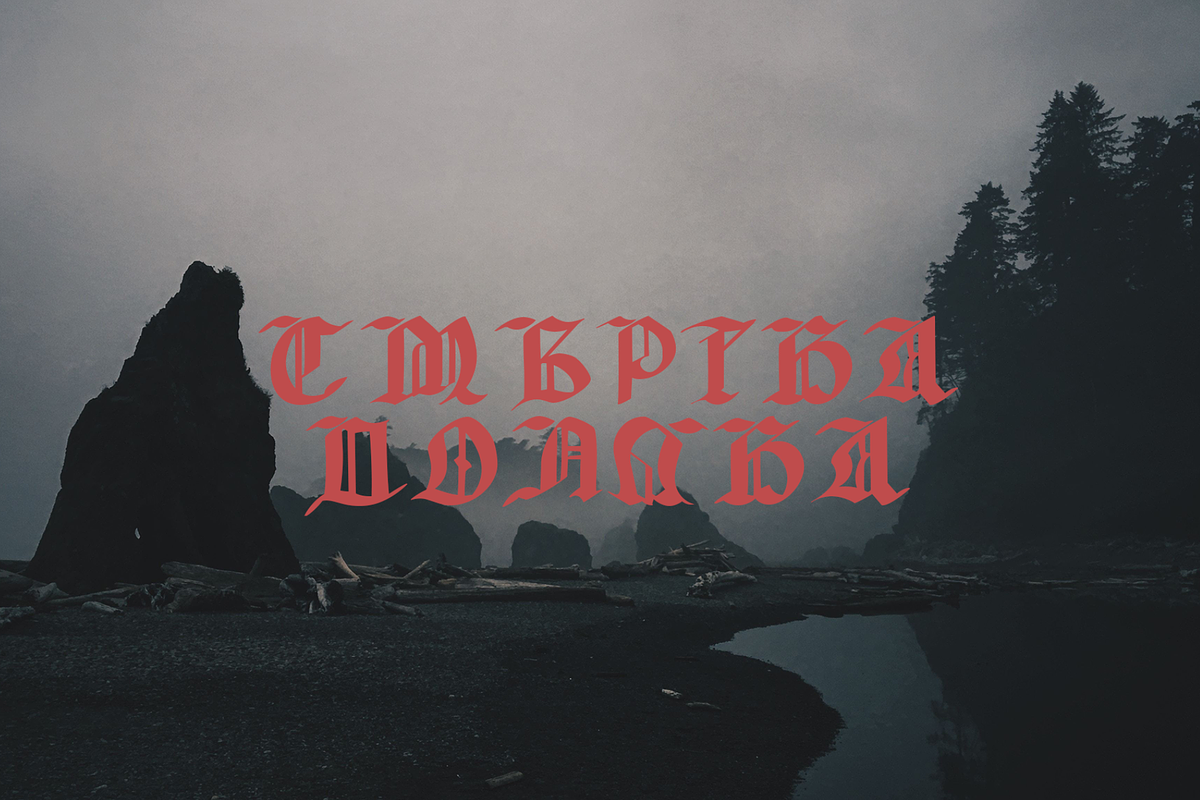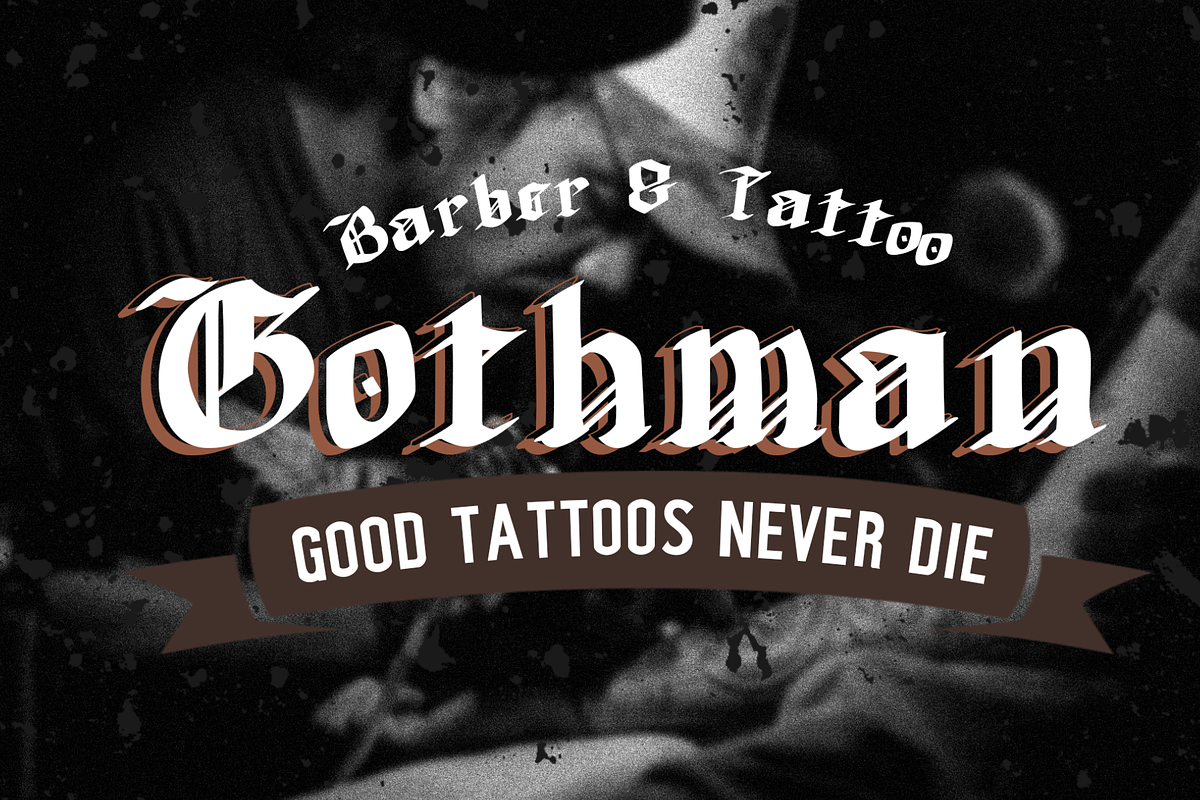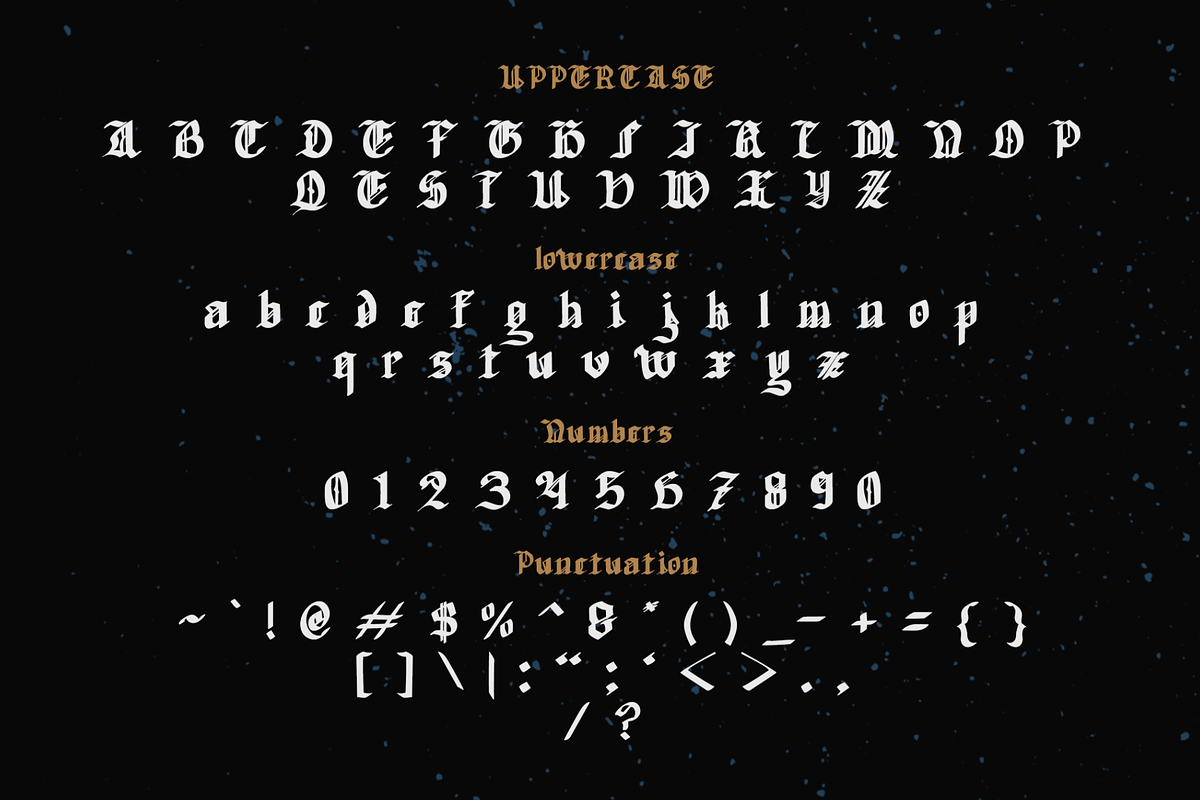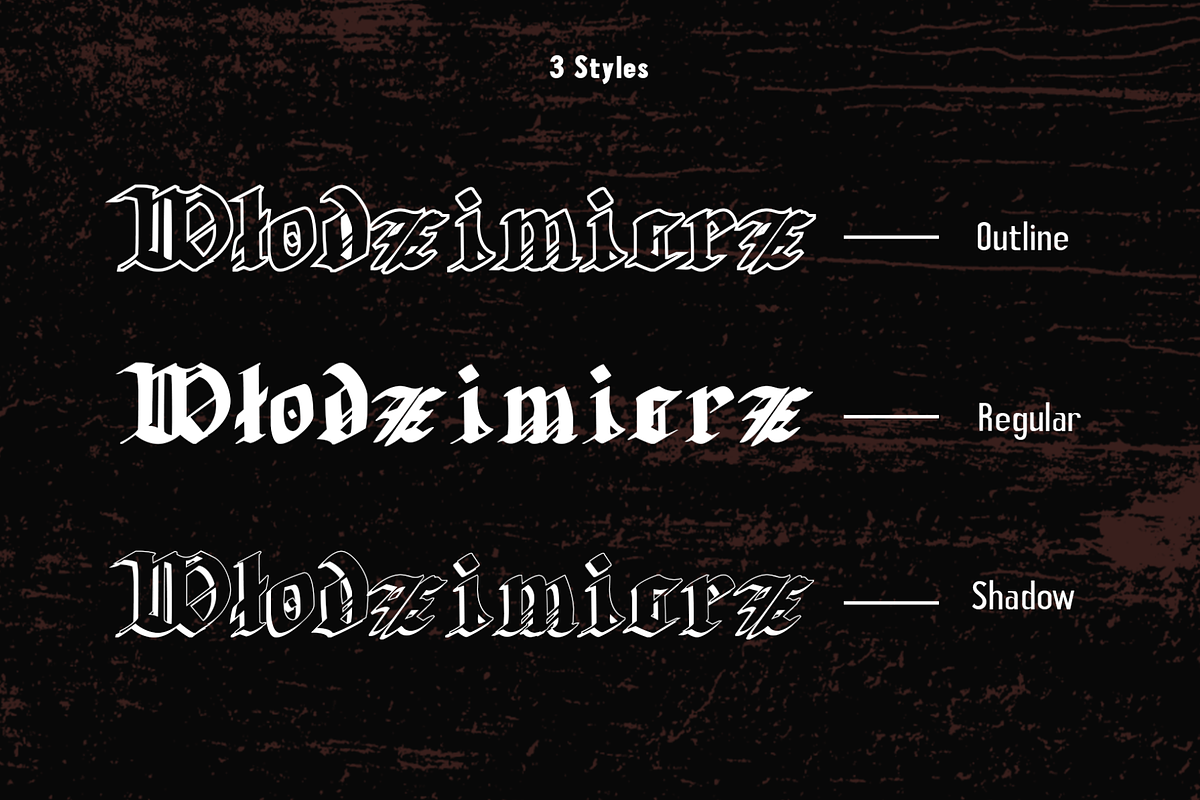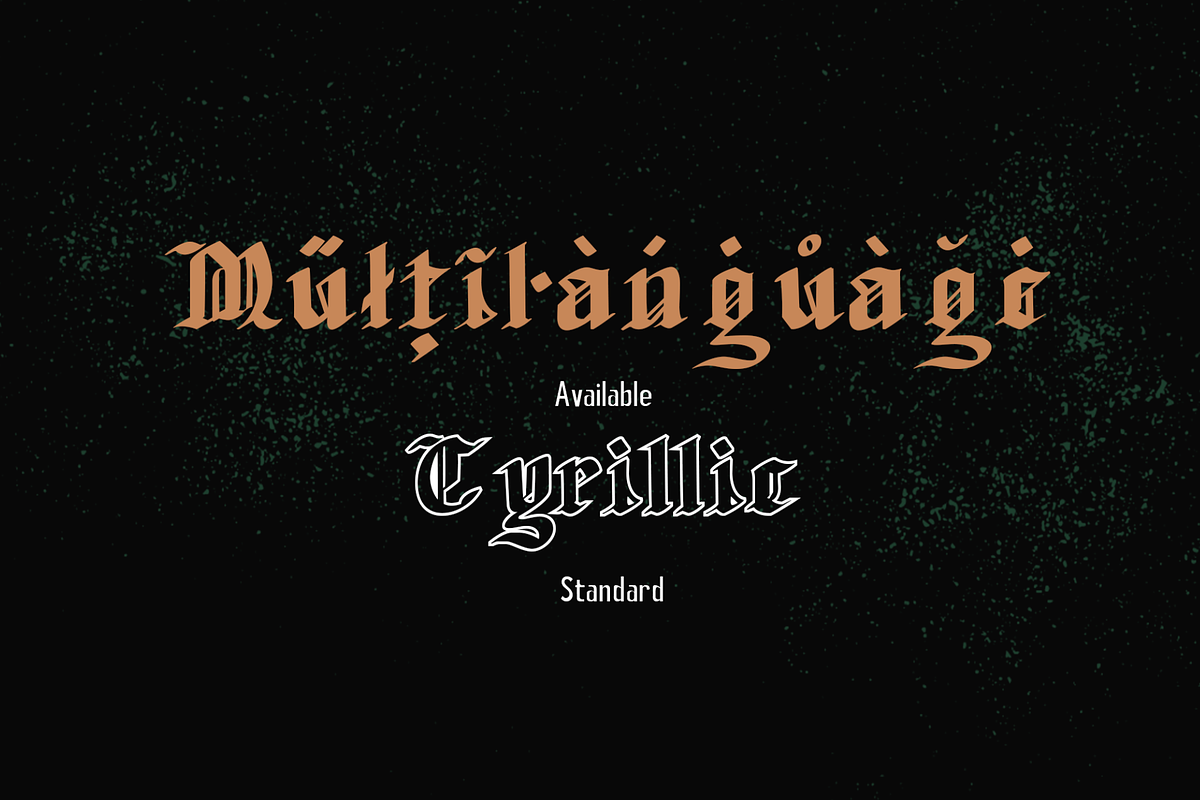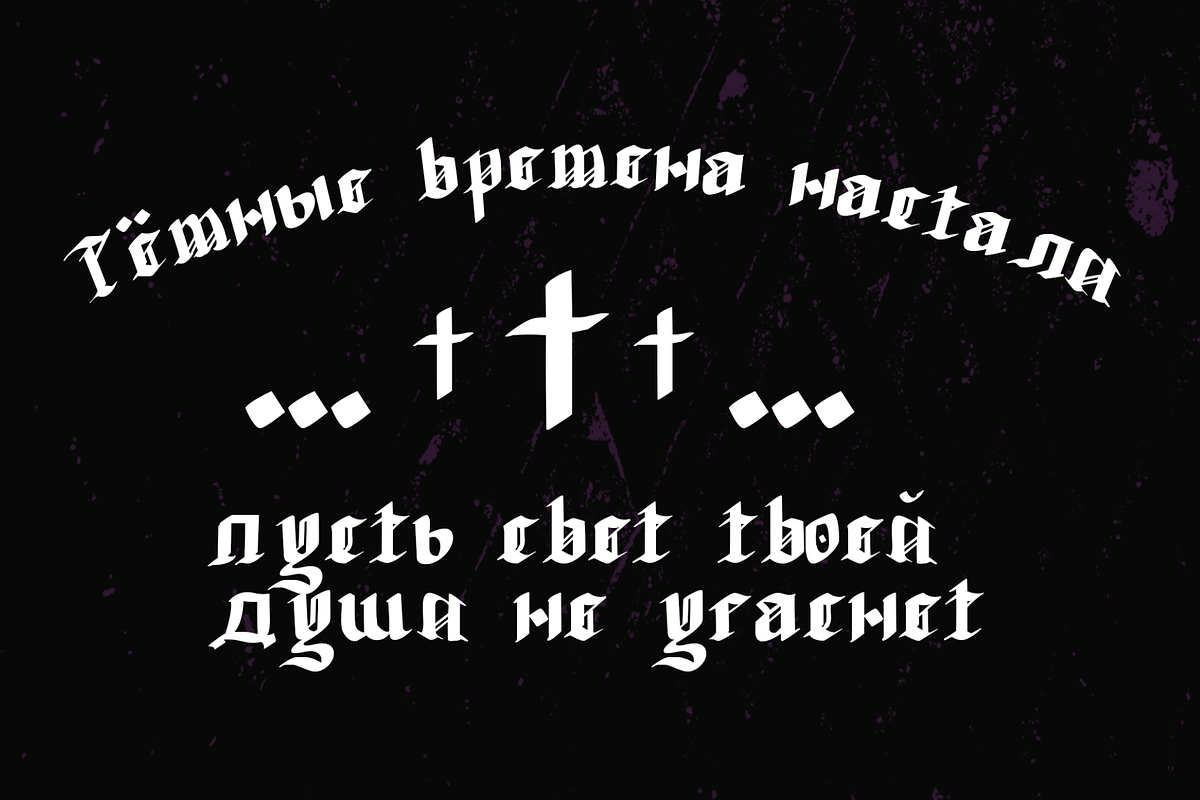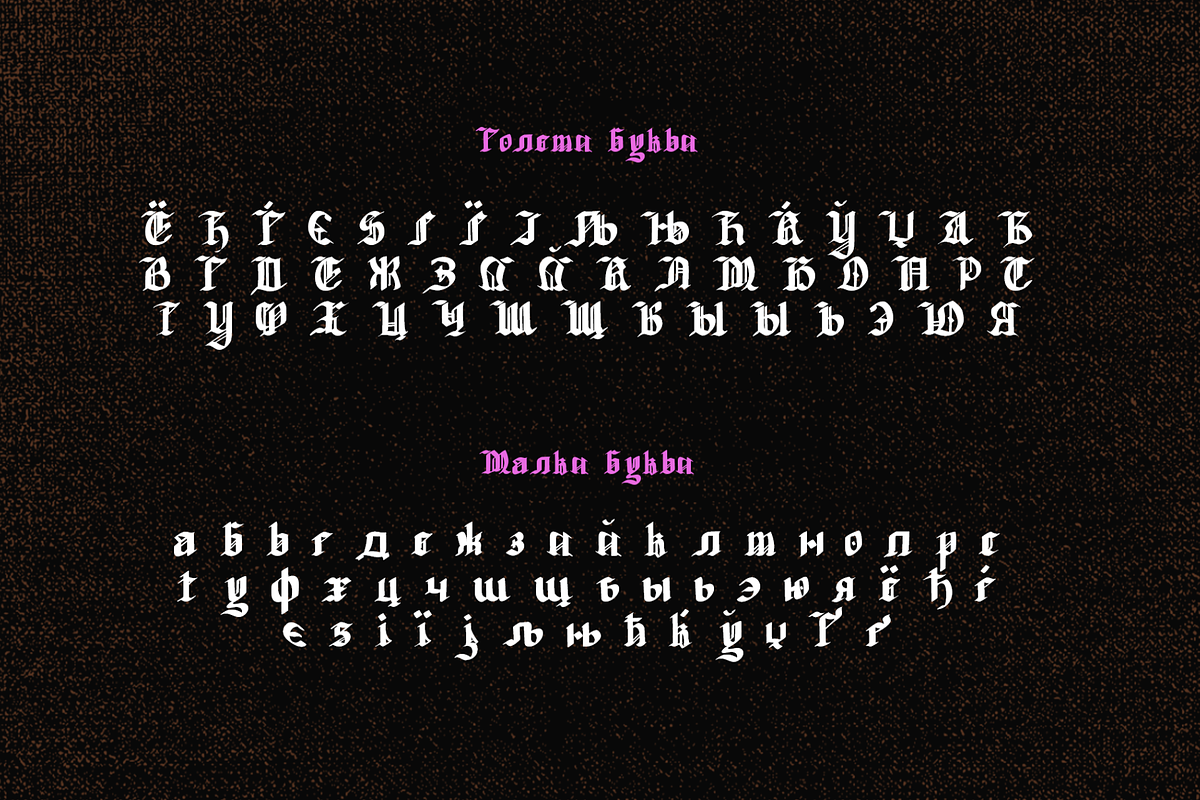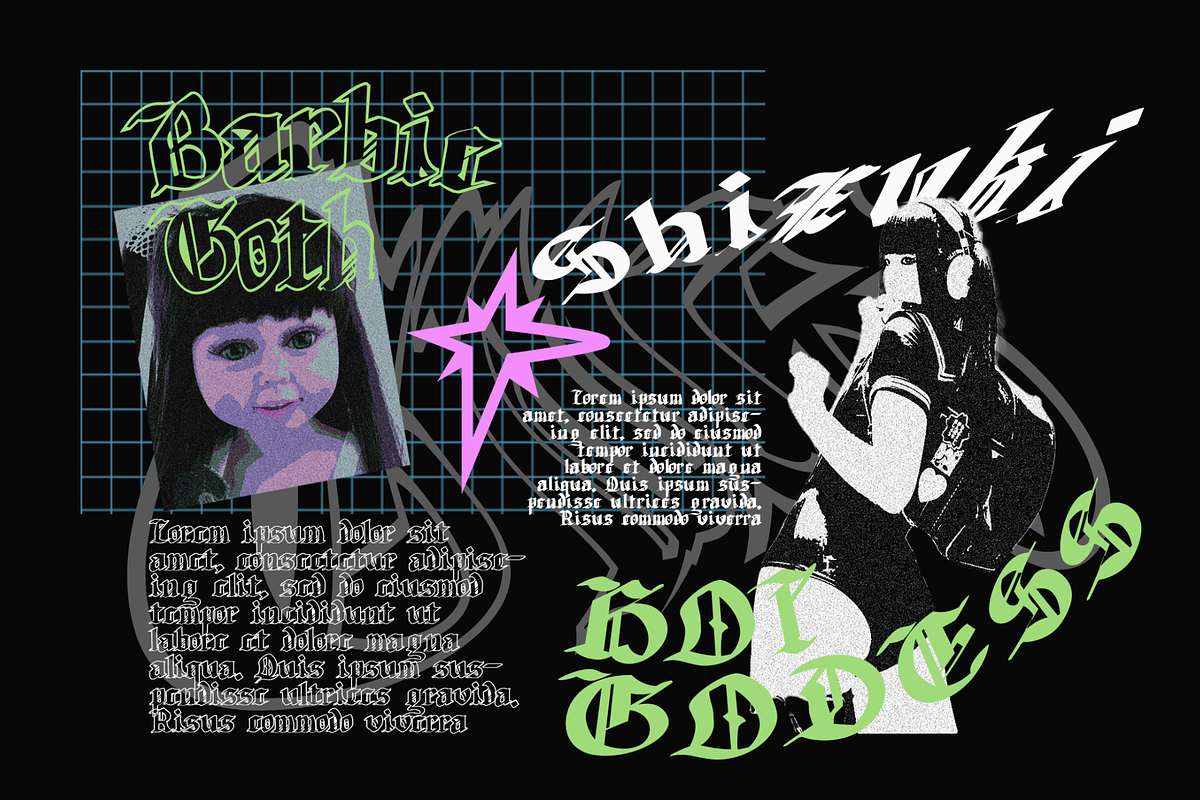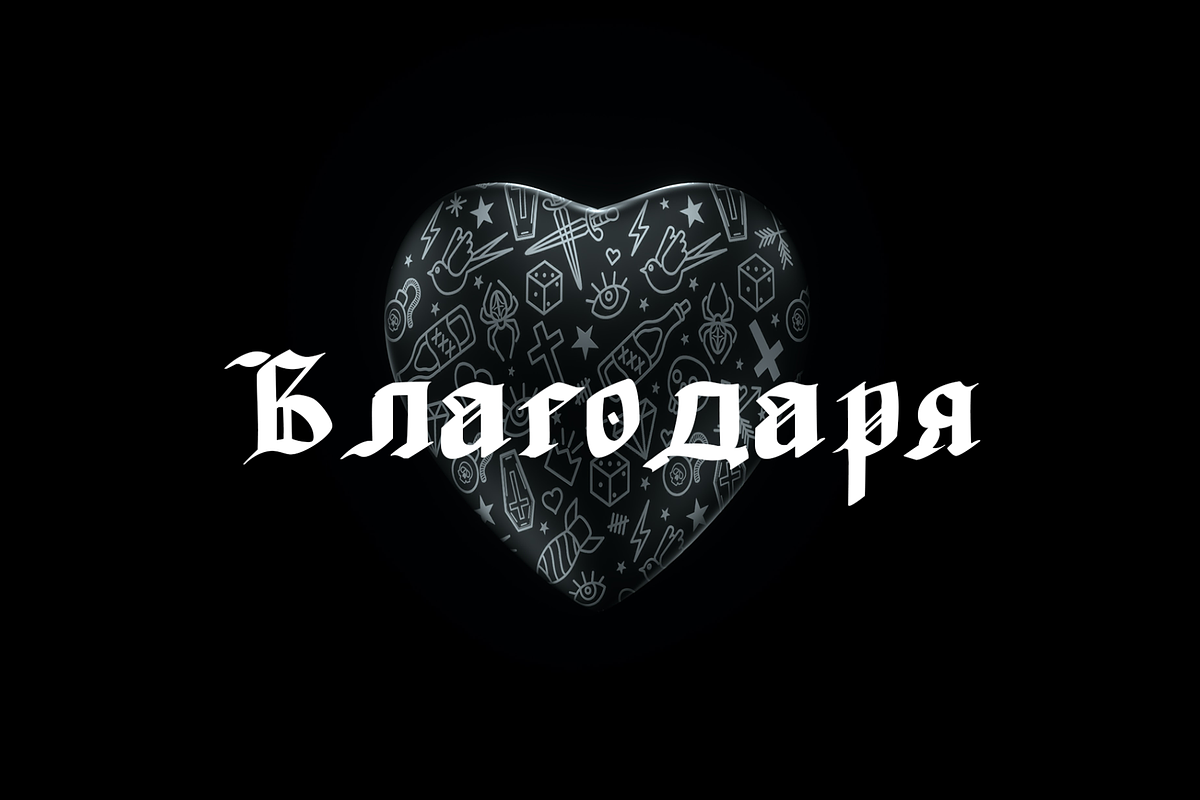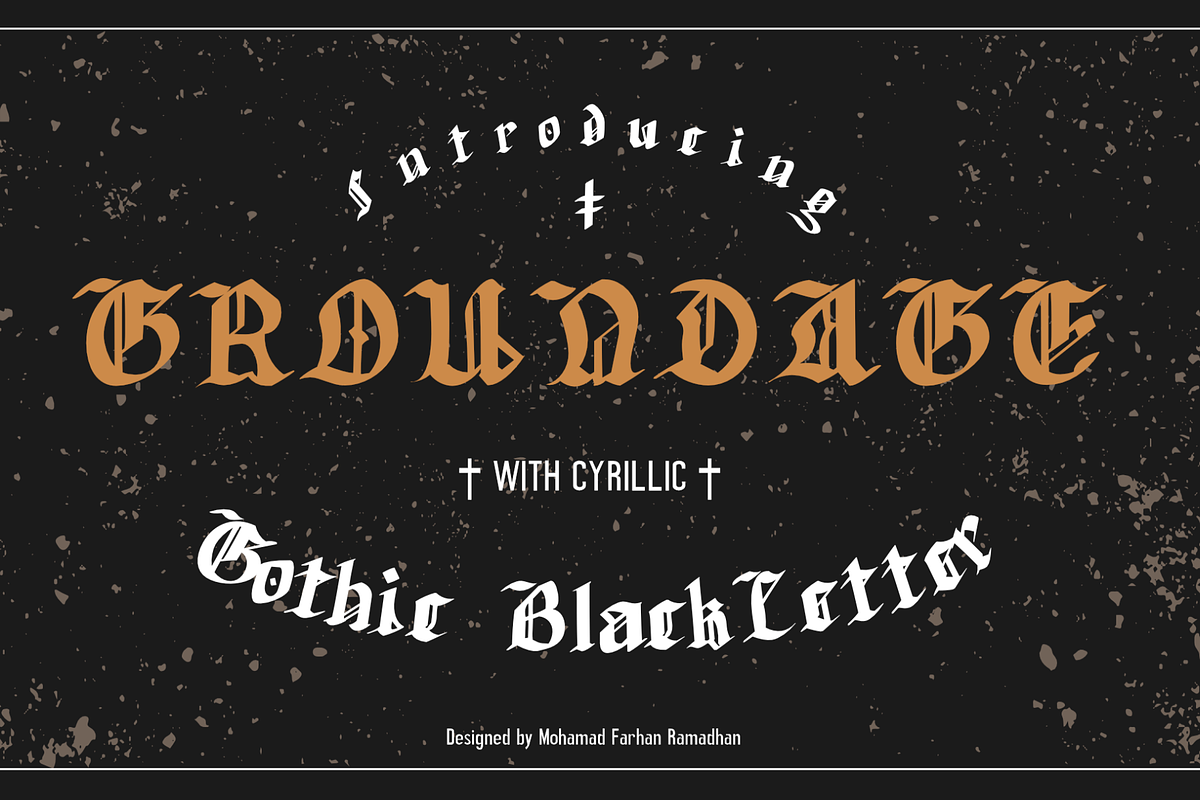
Groundage Gothic Blackletter
Groundage is a Gothic Blackletter font that offers three styles: Outline, Regular, and Shadow. With its bold and clean calligraphic strokes, this typeface boasts a modern-vintage look that exudes elegance and masculinity. Its Y2K-inspired design makes it perfect for stylish posters, marketing materials, logotypes, and headlines. Additionally, it is great for art and craft projects, y2k-streetwear designs, and much more.
What sets Groundage apart from other Gothic Blackletter fonts is its unique combination of traditional and modern design elements. Its clean lines and bold strokes give it a contemporary feel while its Blackletter roots pay homage to its historical origins. Groundage also includes both Latin and Cyrillic character sets, making it a versatile option for a range of projects.
This font pairs well with other modern-vintage fonts and looks great alongside sans-serif fonts for contrast. Its three styles allow for versatility in design and can be used for a variety of creative projects.
Groundage was designed with the intention of creating a stylish, masculine font that could be used in a variety of contexts. Its Y2K-inspired design concept was chosen to evoke nostalgia while still feeling fresh and modern. The combination of traditional Blackletter elements with a contemporary twist creates a unique aesthetic that stands out from other fonts in its category.
Groundage is not based on any historical design, but its Blackletter roots pay homage to centuries of typographical tradition. Its modern twist on the classic Gothic style creates a unique and versatile font that can be used in a range of creative projects.